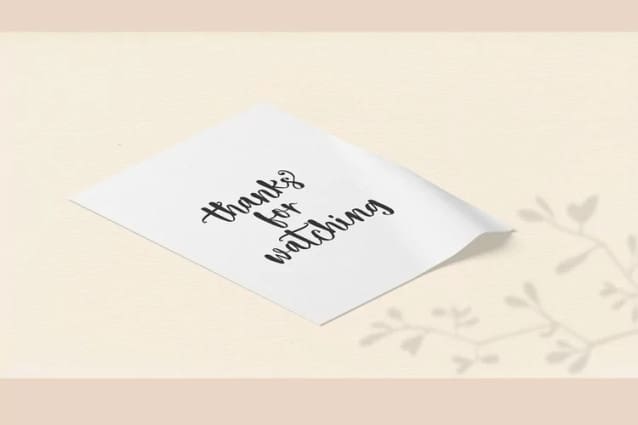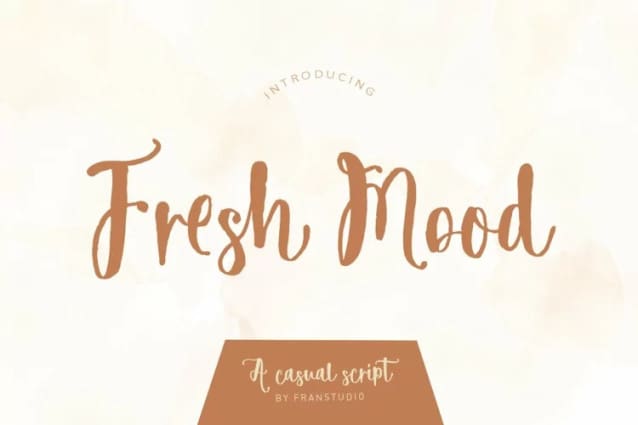
Fresh Mood Font
Fresh Mood Font is a hand-brushed modern calligraphy script font, created with both pen & brush. dancing baseline with separate swashes that can be applied to the beginning and ends of all lowercase. FreshMood includes several ligatures, alternates and international support for most western languages.